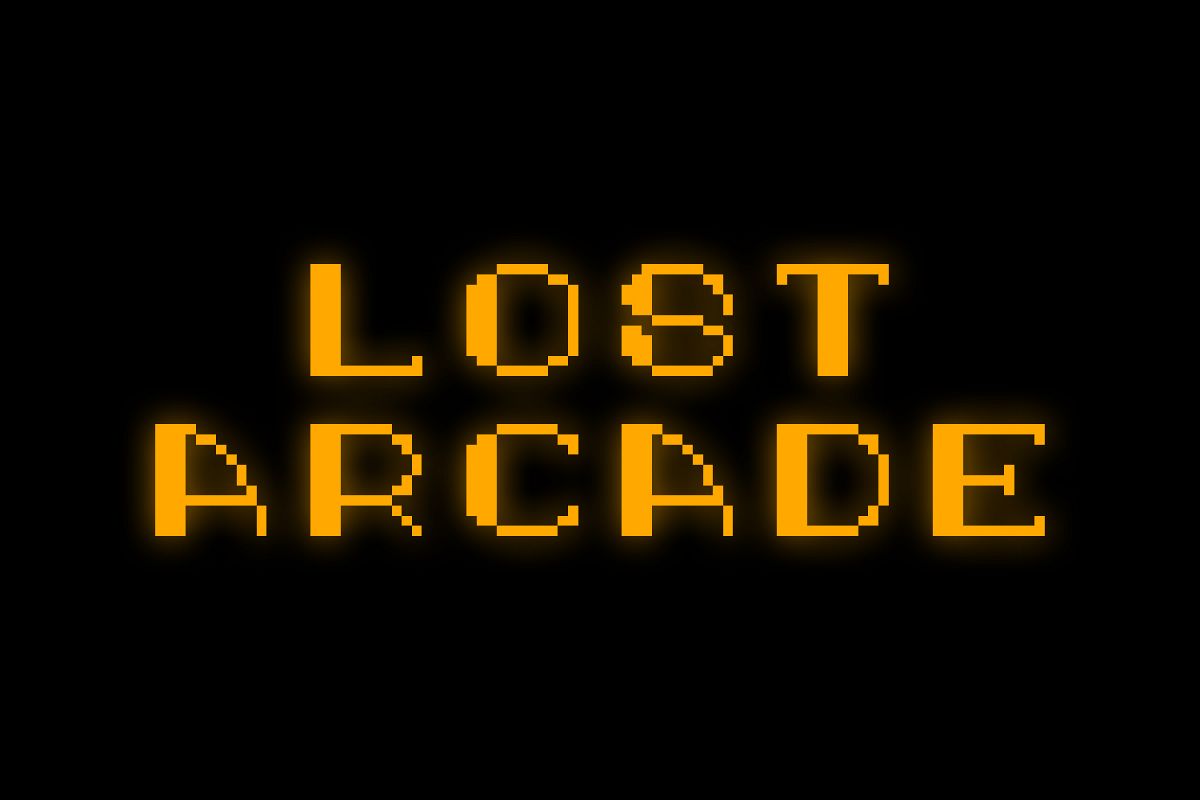
Lost Arcade Sans Adorn Black
Lost Arcade is a one-of-a-kind display font inspired by the nostalgia of pixel art and the theme of mystery. For the pixel purists among us, every square is proportional to its neighbors. Included here is the the filled variant of Lost Arcade Sans Adorn, Lost Arcade Sans Adorn Black.
Lost Arcade fonts include uppercase and lowercase characters, uppercase swash characters and broad language support, totalling at 480 glyphs.